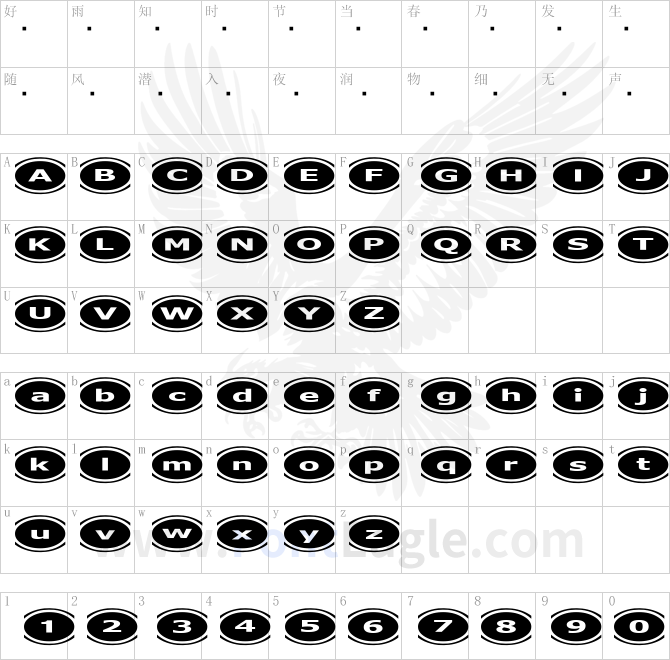
- Font name:D3 Mochism
- Font Full Name:D3 Mochism
D3-Mochism is a great font, widely used in graphic design, single-page menu design, poster design and other fields, and is deeply loved by designers.D3-Mochism download.